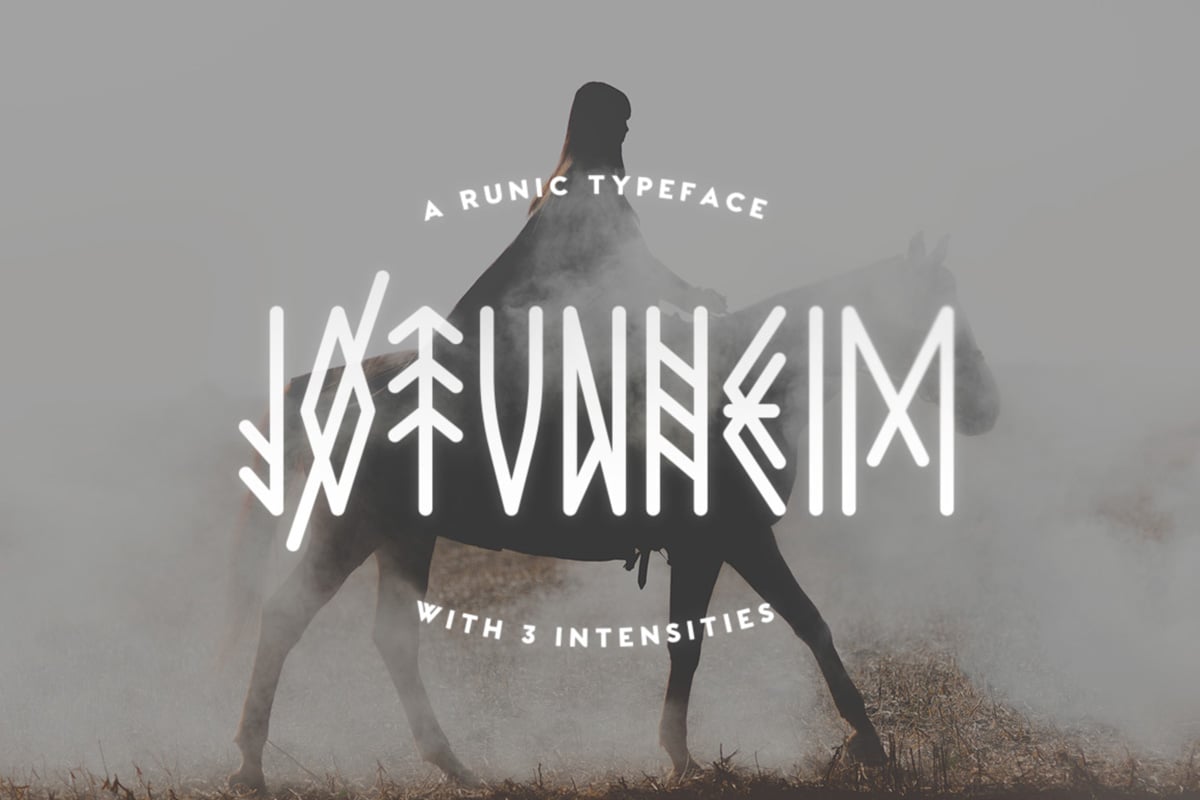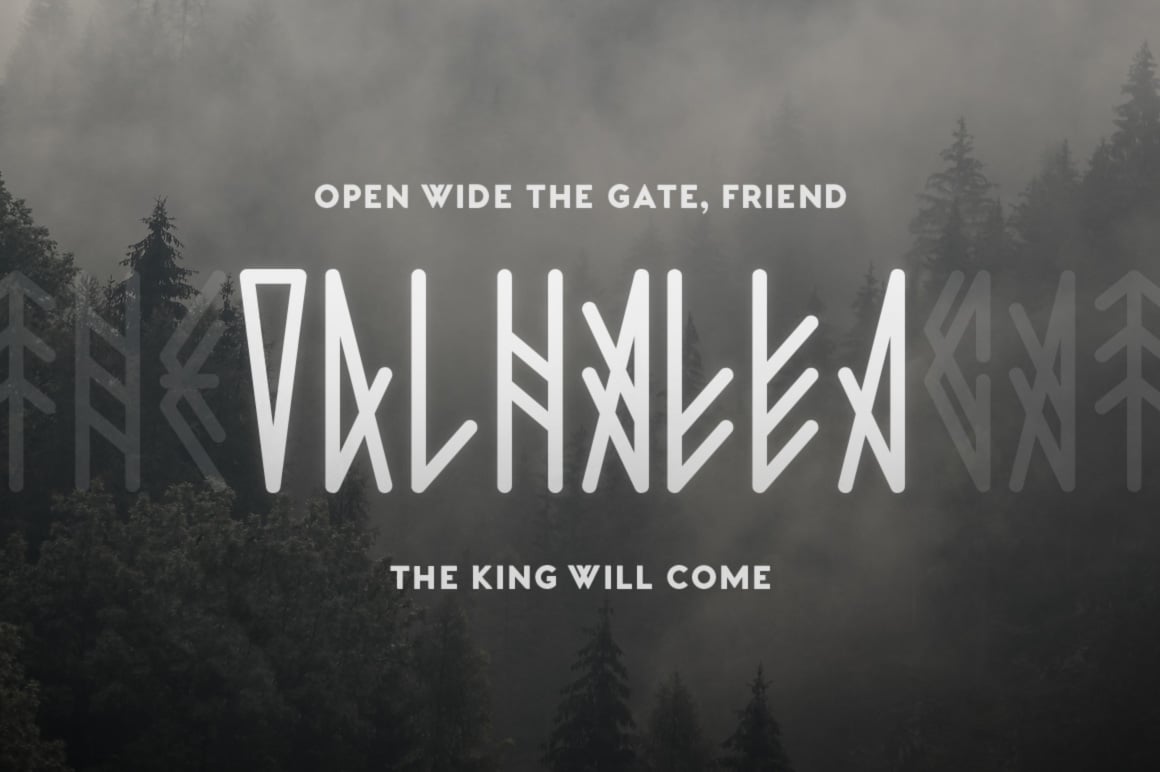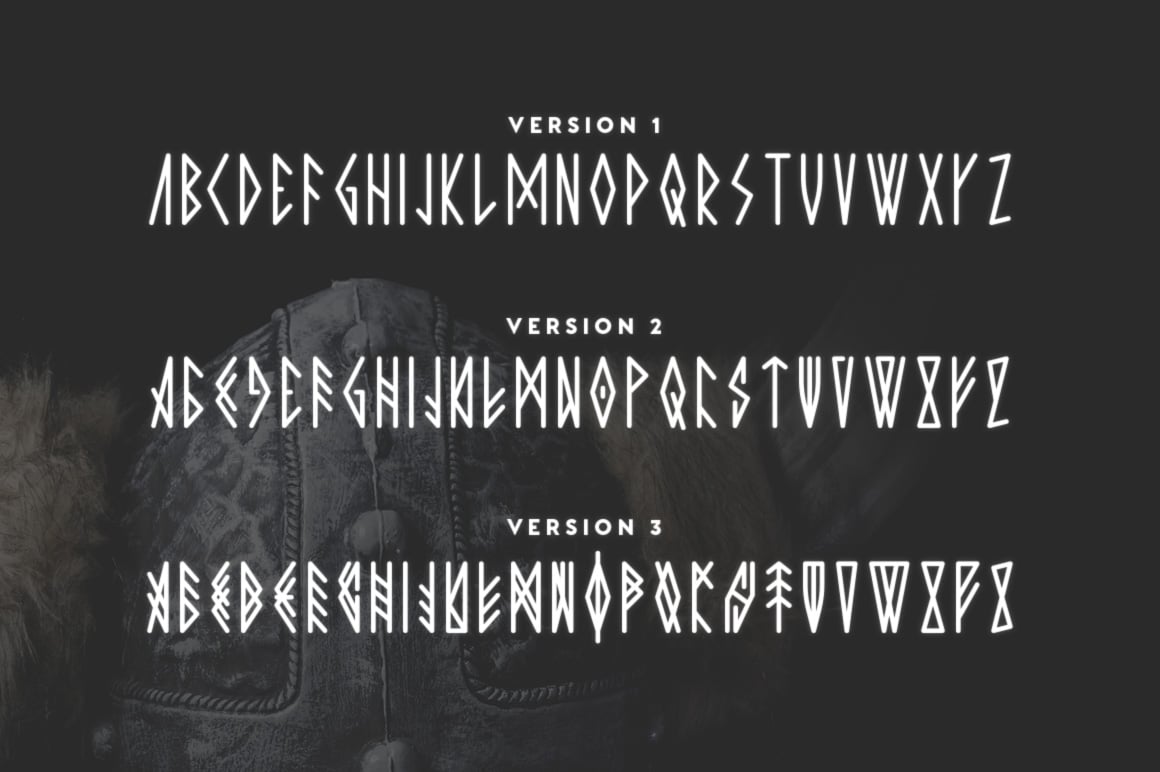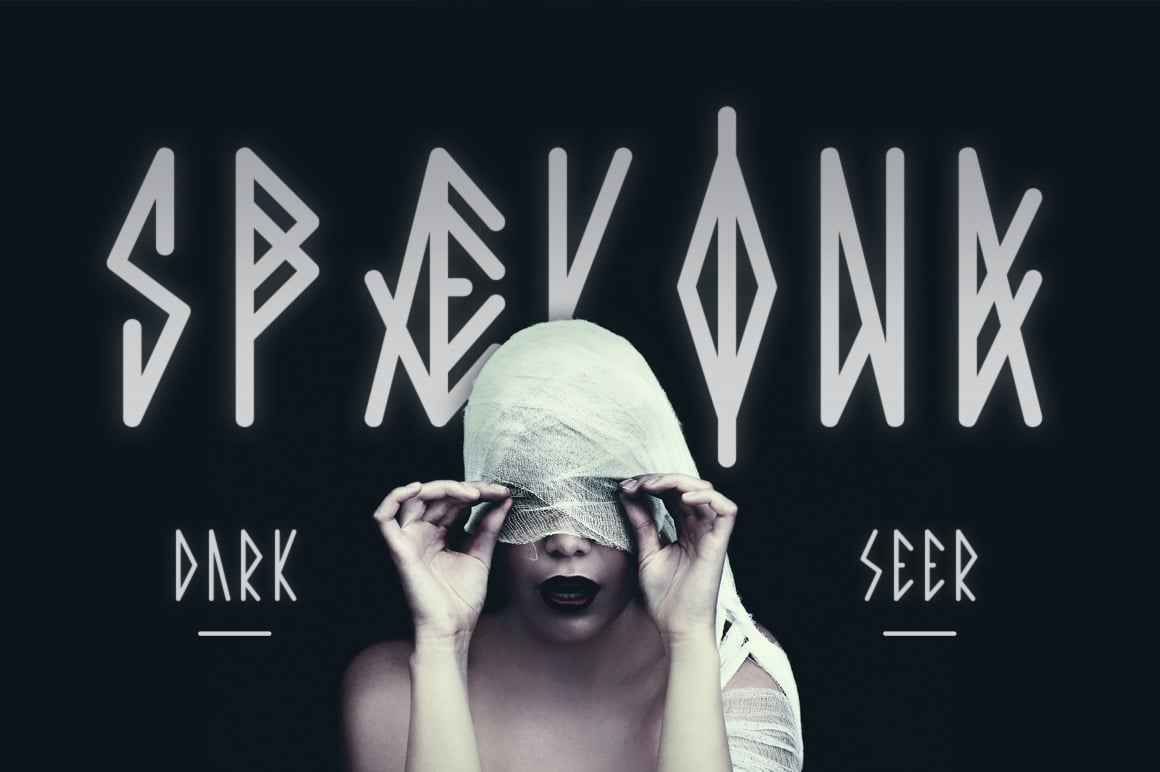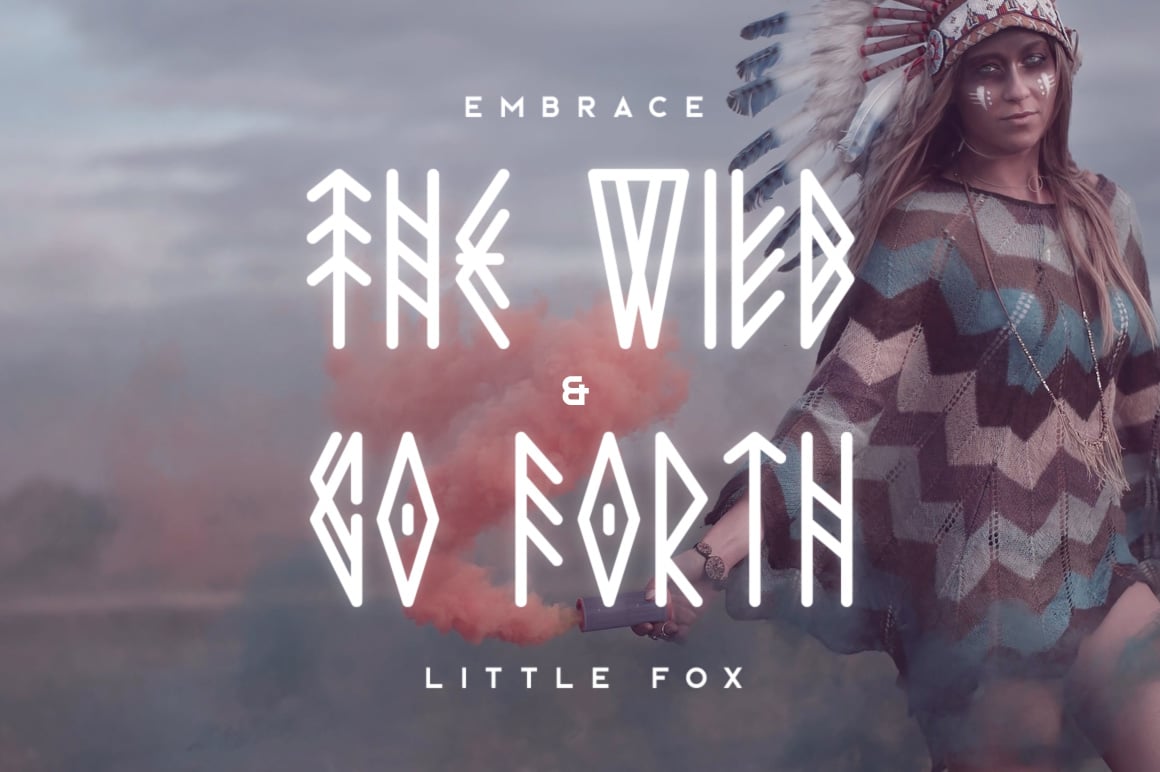
Jotunheim Typeface
Jotunheim is a font inspired by ancient runes. It features three different versions. Version 1 is the most simple and legible style. Version 2 is a bit more complex which adds more authenticity at the cost of legibility and Version 3 is the most intricate style.
I’d recommend mixing up the different versions to achieve unique results.
Jotunheim includes uppercase multilingual letters, numbers and simple punctuation. Some letters also have mirrored versions which you can toggle with Caps Lock.